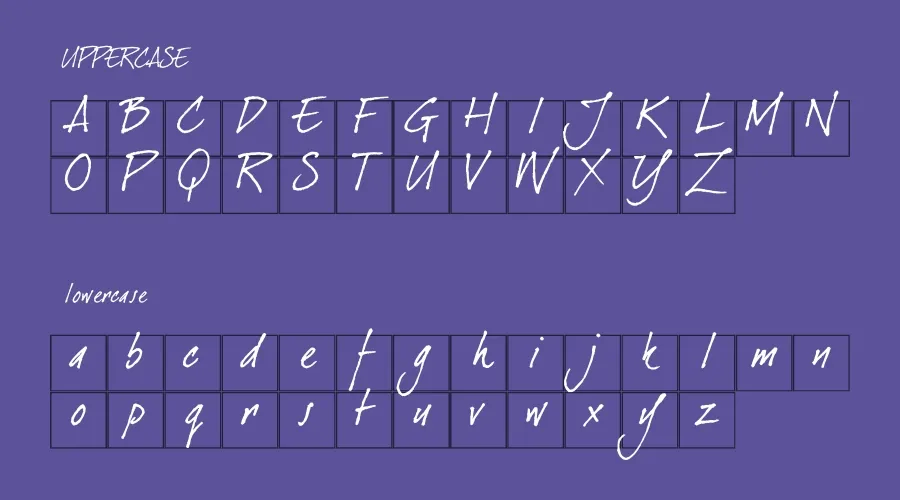
Dear Joe Font
About Dear Joe Font
JOEBOB graphics designed Dear Joe Font is a beautiful script text style Gravity Point typeface could be a show text style. The letters are all exceptionally sharp and have a clean, cutting edge see.
The textual style incorporates both upper and lowercase letters, as well as numbers and symbols. This typeface contains unique glyphs that provide it with a unique see.
Each character is hand-crafted with extraordinary consideration of detail. This typeface may be an awesome choice for features, logos, and other brief text. It also culminated in including a bit of fashion to longer passages of content.